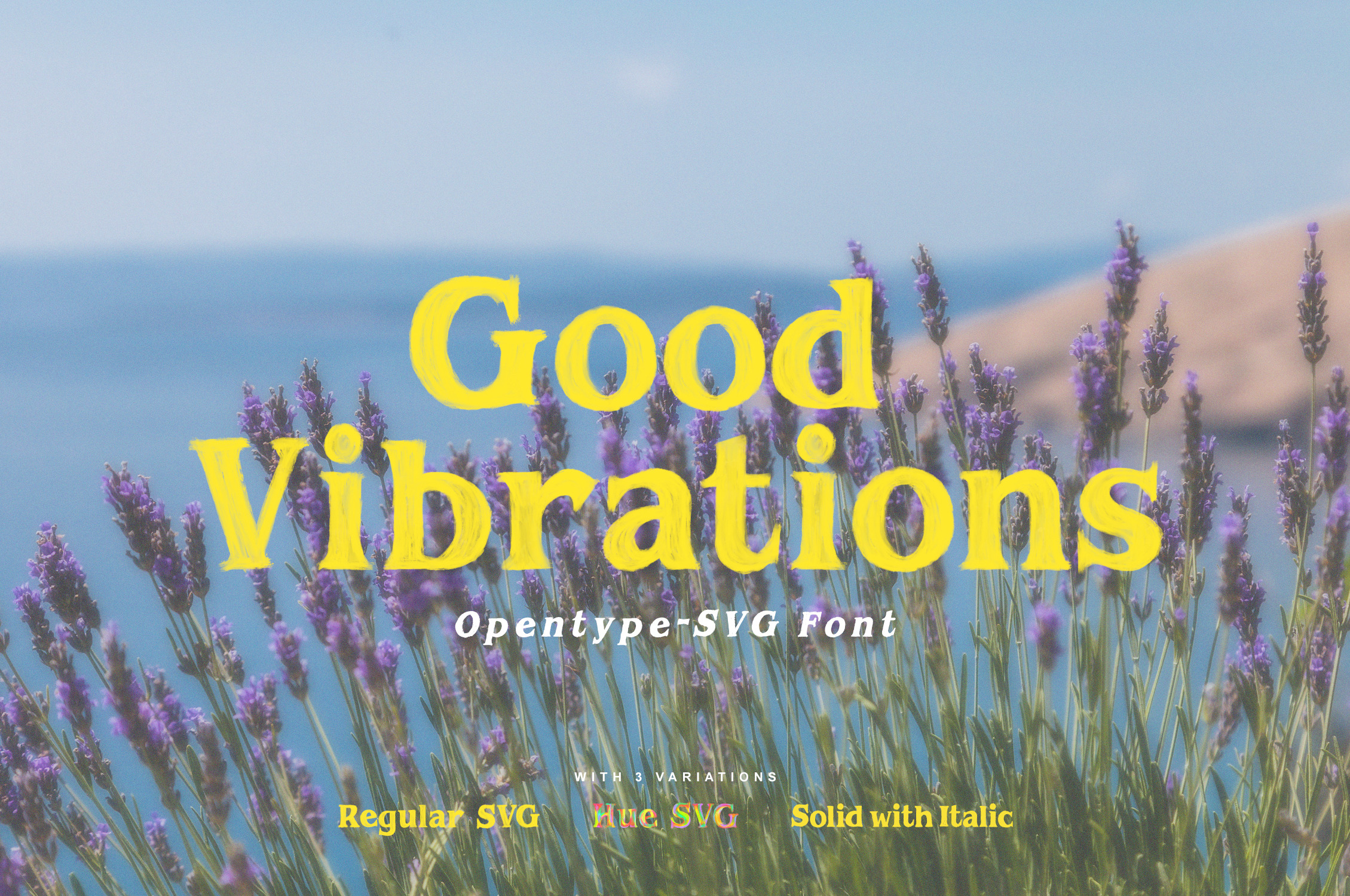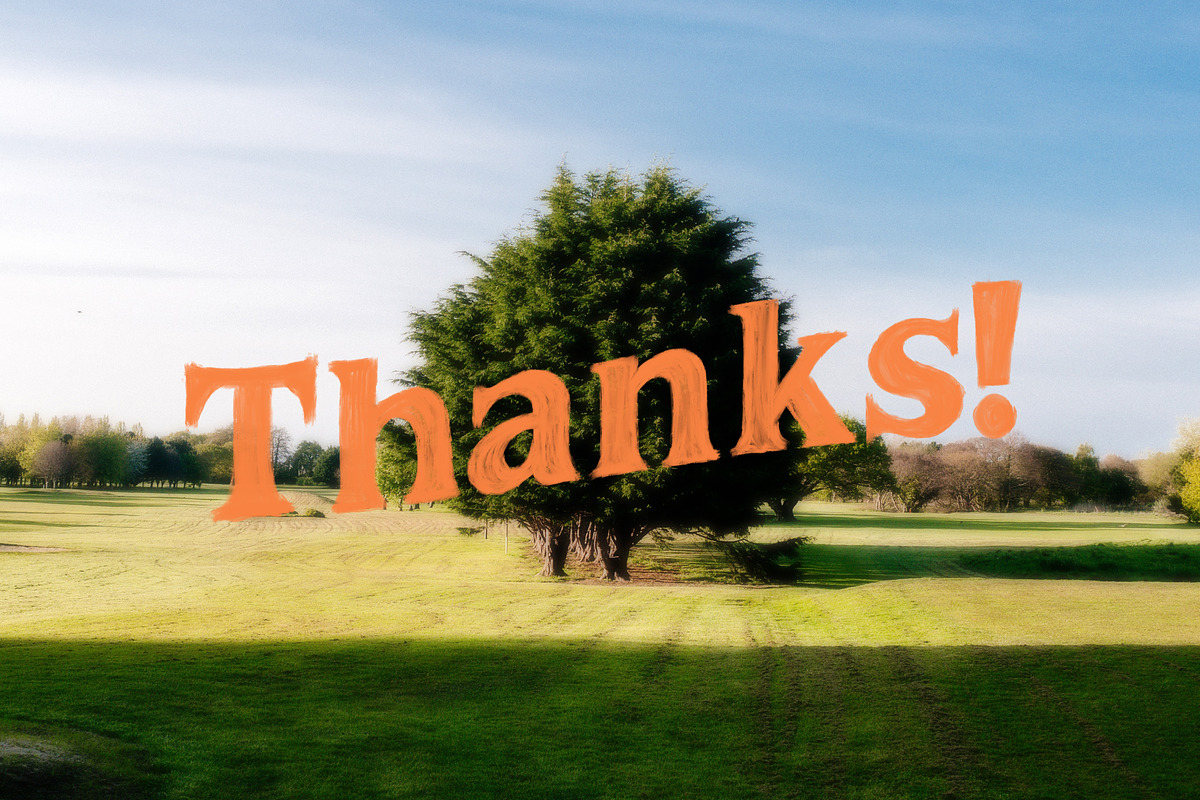
Good Vibrations | Opentype SVG Font
Who needs good vibes?
Good Vibrations is an Opentype-SVG Font that is carefully handpainted to achieve a perfect paint texture for a serif font. It is a chunky serif font that is inspired from modern retro films. Good Vibrations is a perfect font choice for either a soft and dreamy vibe or a subtle thriller design.